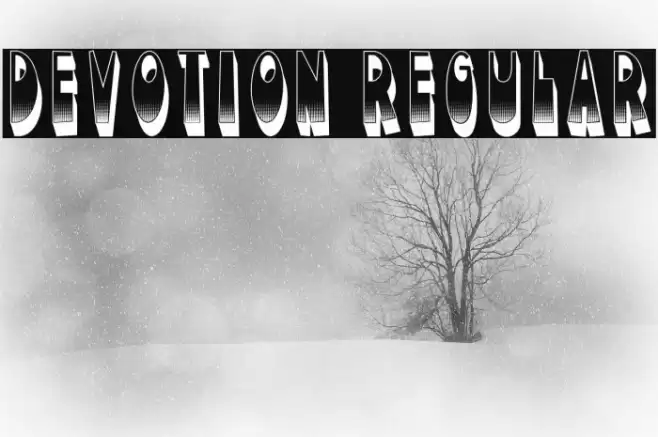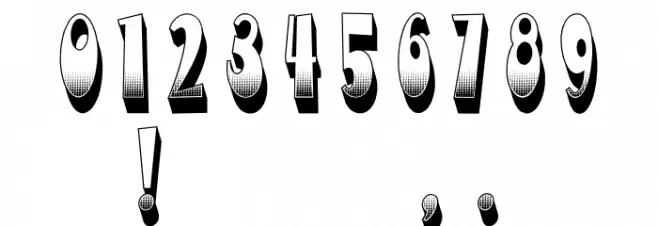
Devotion Regular Font
Devotion Regular Description
This font features a bold, three-dimensional design with a distinct shadow effect that gives it a striking, impactful appearance. Each character is crafted with a gradient fill, transitioning from solid black at the base to white at the top, creating a sense of depth and volume. The uppercase letters are particularly prominent, with a playful yet structured form that captures attention. The numerals and special characters maintain this dynamic style, ensuring consistency across all elements. This font is perfect for projects that require a bold statement and a touch of retro flair.
A bold, 3D font with gradient shading and a retro vibe from Cartoon fonts.
- Proposed Projects: Ideal for poster designs, retro-themed branding, eye-catching headlines, and creative advertising campaigns.
- Overall Style: Retro, Decorative
- Use Case: Headlines, Posters, Branding